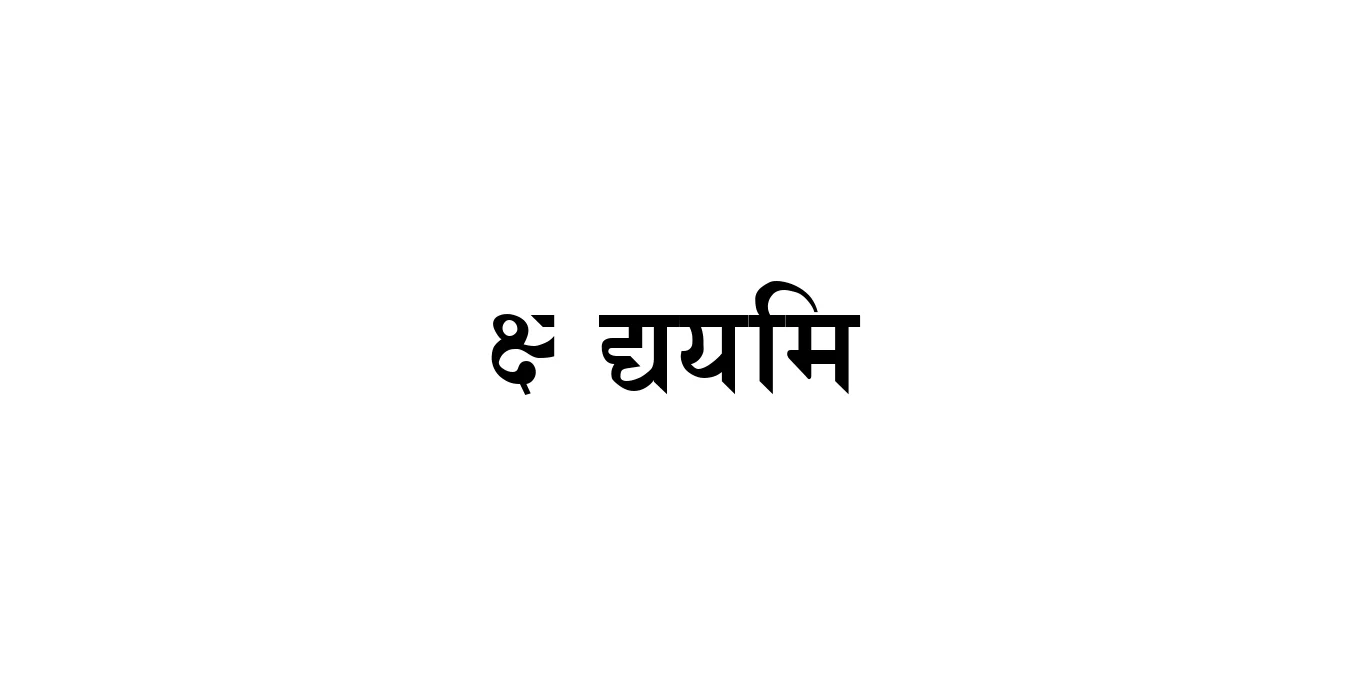
I Bold
Designed by Radim Peško
| Category | Sans Serif / Display |
| Designer | Radim Peško |
I Bold is a striking display typeface that prioritizes geometric purity and high-impact visual communication. Developed by renowned designer Radim Peško, this font family was born out of a desire to explore the limits of minimalist letterforms. The 'Bold' weight specifically emphasizes thick, architectural strokes that create a powerful presence on the page, making it a favorite for contemporary art galleries and high-end fashion publications.
Technical precision is at the heart of I Bold. Each character is meticulously crafted to balance negative space with dense black weights, ensuring that even at massive display sizes, the font maintains its structural integrity. It functions best when used in minimalist environments where the typography is the primary design element, often serving as both text and image in modern editorial layouts.
I Bold Best Uses
High-impact magazine covers and bold article headlines.
Creating minimalist and modern visual identities for luxury brands.
Large scale typography for art events and exhibitions.
Attention-grabbing hero sections for architectural or design websites.